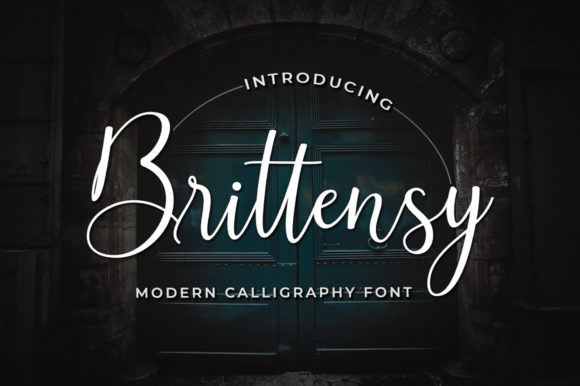
The Brittensy Font: Elevate Your Design with Elegant Modern Calligraphy
I’ll never forget the time I was working on a branding project for a luxury wedding planner. The client wanted a sophisticated, feminine touch, but I was struggling to find the perfect font to capture that essence. That’s when I stumbled upon the Brittensy font, a modern calligraphy script that instantly elevated my design. In this article, I’ll share my experience with Brittensy, its features, and how to make the most of it in your designs.
An Honest Review of Brittensy Font
The Brittensy font has won my heart with its elegant style and versatility. Here’s what I love about it:
- ✨ Elegant and sophisticated: Brittensy adds a touch of luxury to any design.
- ✅ Highly legible: Despite its script nature, Brittensy remains clear and easy to read.
- 💫 Versatile: Perfect for branding, wedding designs, and high-end marketing materials.
However, no font is perfect, and Brittensy has a few quirks:
- 🤔 Limited use in body text: Brittensy’s script style makes it better suited for headings and titles.
- ⚠️ May not work well in small sizes: Like many script fonts, Brittensy can become blurry or lose its elegance at smaller sizes.
The Story Behind Brittensy Font
Brittensy is a modern calligraphy script designed with elegance and sophistication in mind. While the designer’s background is unclear, it’s evident that Brittensy was crafted to bring a touch of luxury to any design. Whether you’re working on a wedding invitation or a high-end brand identity, Brittensy is sure to impress.
| Font Name | Brittensy Font |
| Author | Attract Studio |
| What type of projects is Brittensy best suited for? | Brittensy is perfect for luxury branding, wedding designs, and high-end marketing materials. |
| Can I use Brittensy for body text? | While Brittensy is highly legible, its script style makes it better suited for headings and titles. |